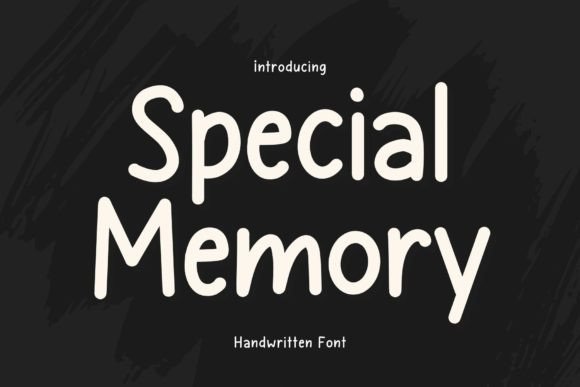
Introducing Special Memory Font - A Journey into the Realm of Creative Expression!
In a world where fonts hold the power to transform words into art, Special Memory emerges as a script font designed to capture the essence of playfulness and authenticity. This exquisite creation by Brown Cupple Fonts is a tribute to the enduring beauty of handwritten notes, evoking a sense of nostalgia and heartfelt connection.
Special Memory isn't just a font; it's an invitation to unleash your creativity and make your projects come alive. Whether you're a seasoned designer or just starting your artistic journey, this font will effortlessly elevate your work to new heights. Its charming strokes and whimsical curves add a personal touch to any project, making it ideal for a wide array of applications.
Envision your blog posts adorned with Special Memory's playful elegance, captivating your readers with its unique charm. Craft logos and branding materials that exude authenticity and leave a lasting impression on your audience. Create advertisements that pop off the screen with vibrant energy. Design invitations and greeting cards that convey heartfelt emotions and make every occasion memorable.
Let Special Memory be your companion as you embark on creative adventures. Use it to create stunning planners and photo albums that preserve your cherished memories. Adorn your decorations with its whimsical flair, transforming ordinary spaces into enchanting havens. The possibilities are boundless, waiting for you to explore and discover.
Step into the world of Special Memory and let your imagination soar. Experience the joy of creating projects that resonate with your heart and leave an indelible mark on the world. Embrace the power of this remarkable font and watch your creativity blossom like never before.